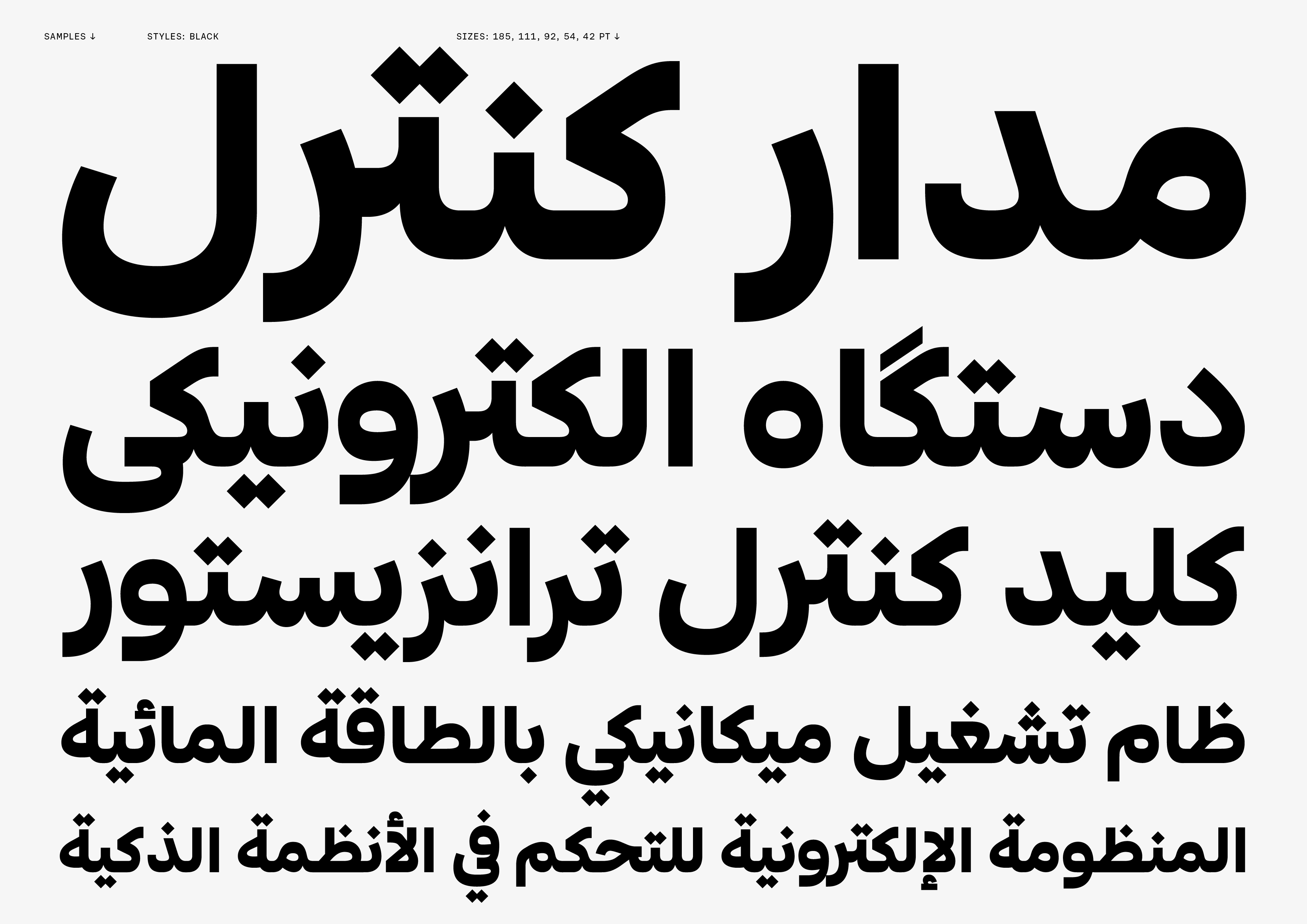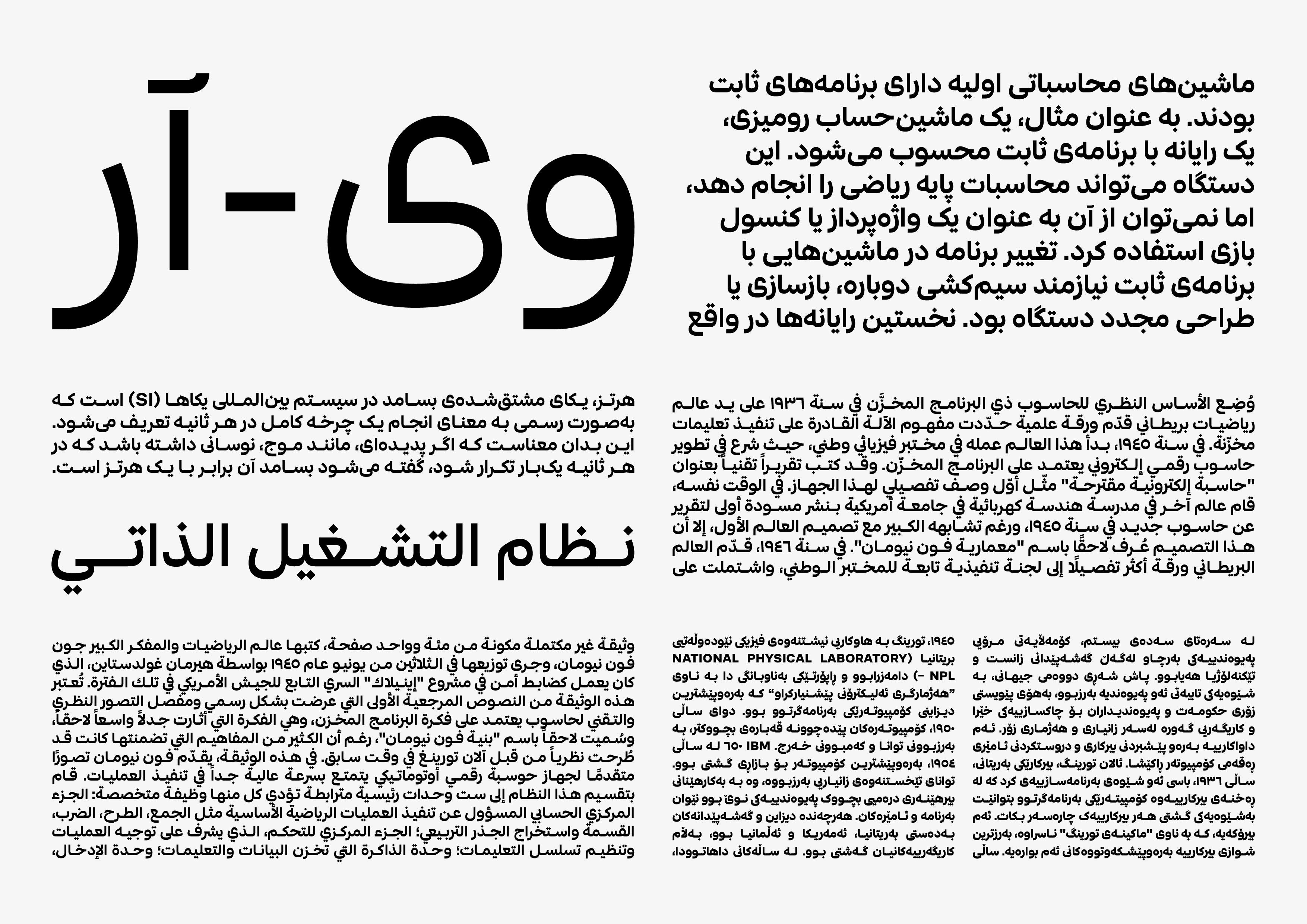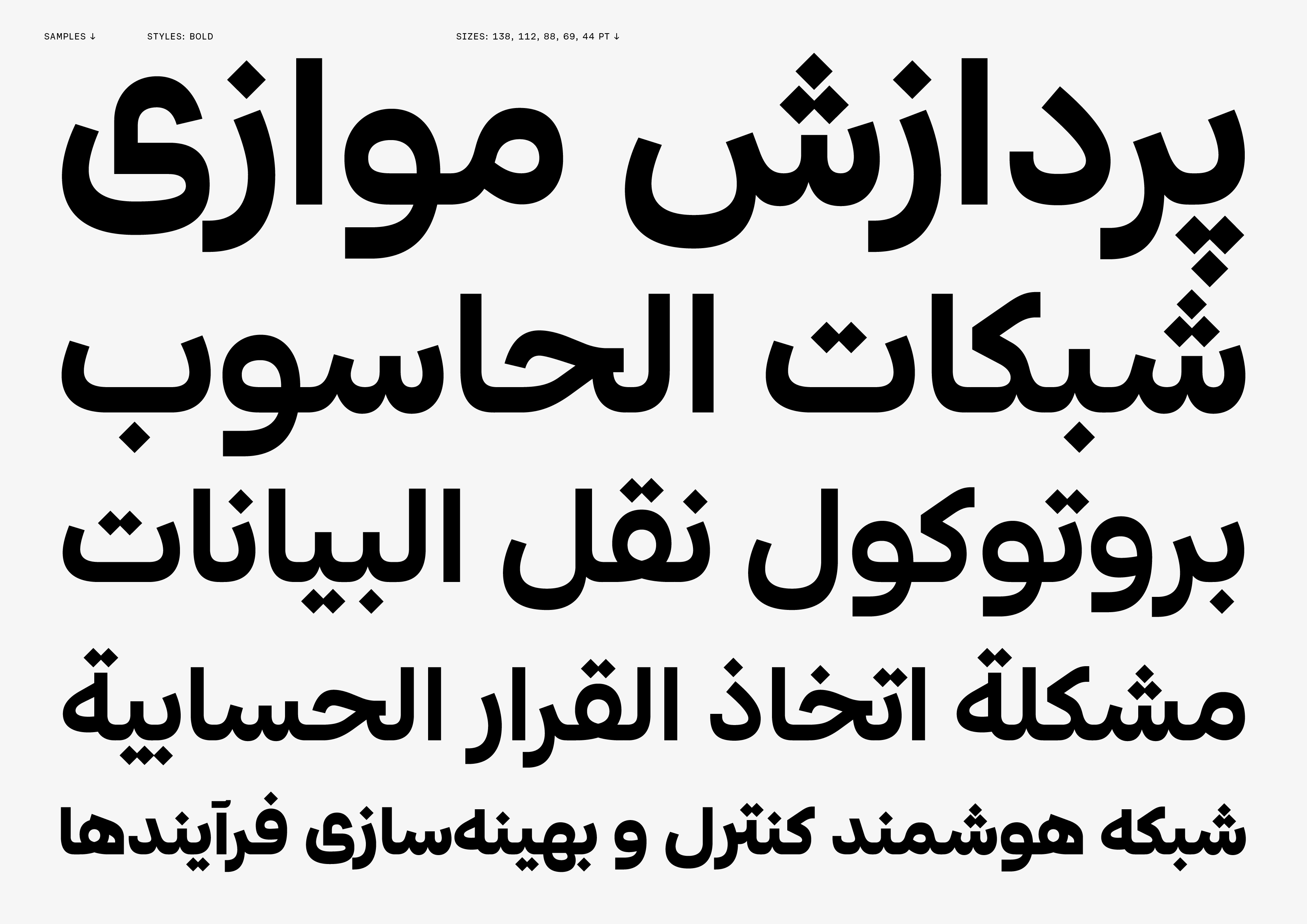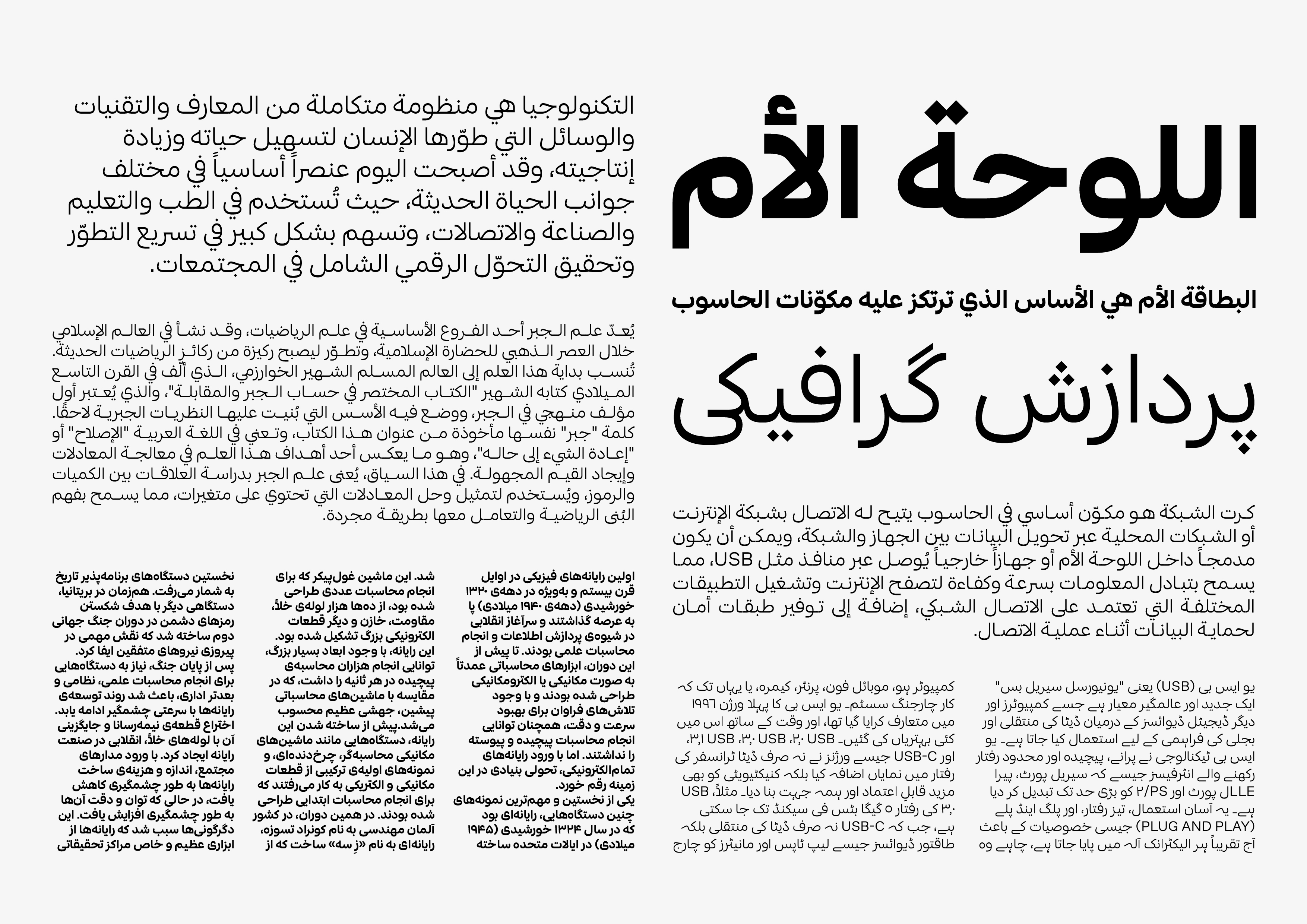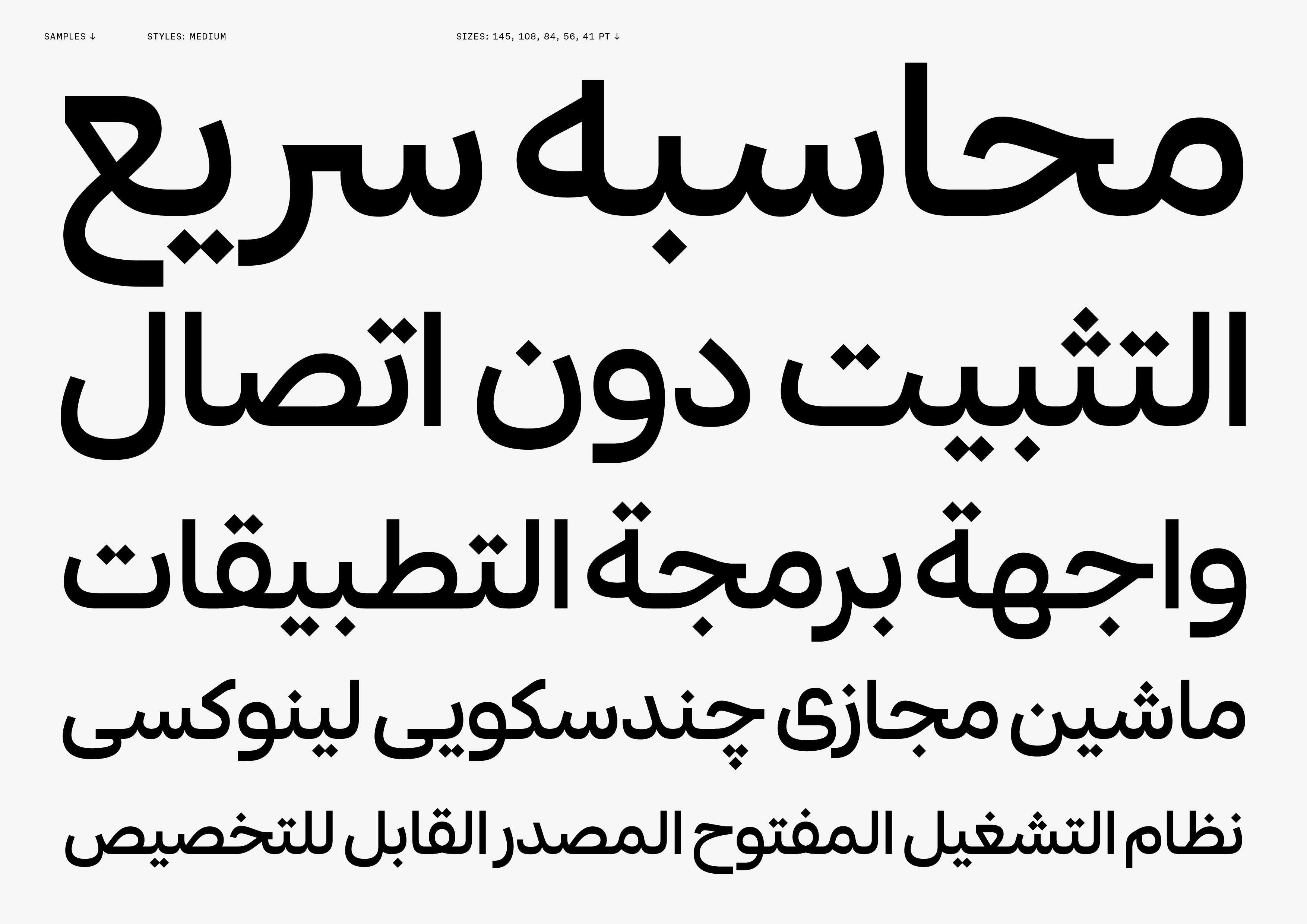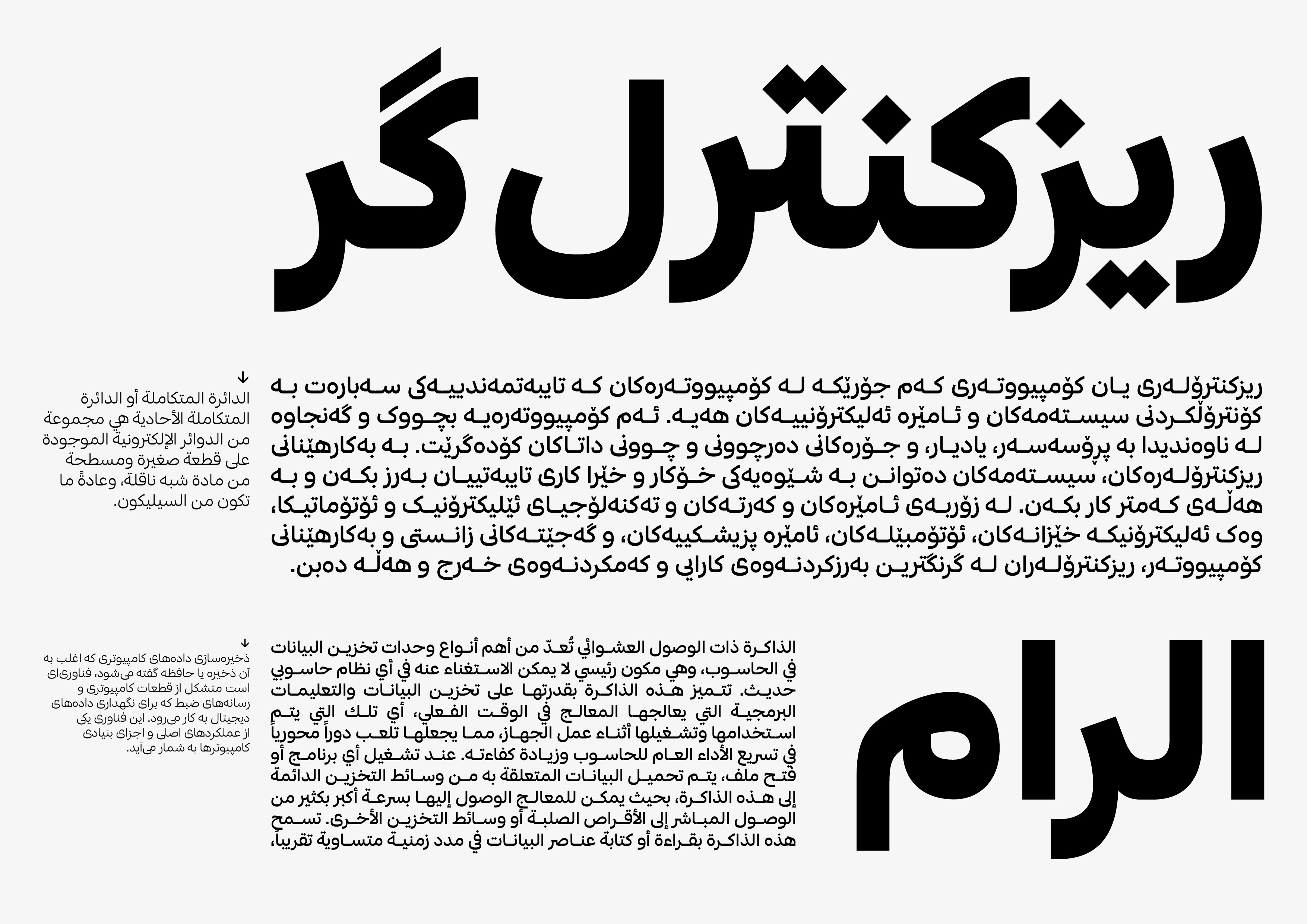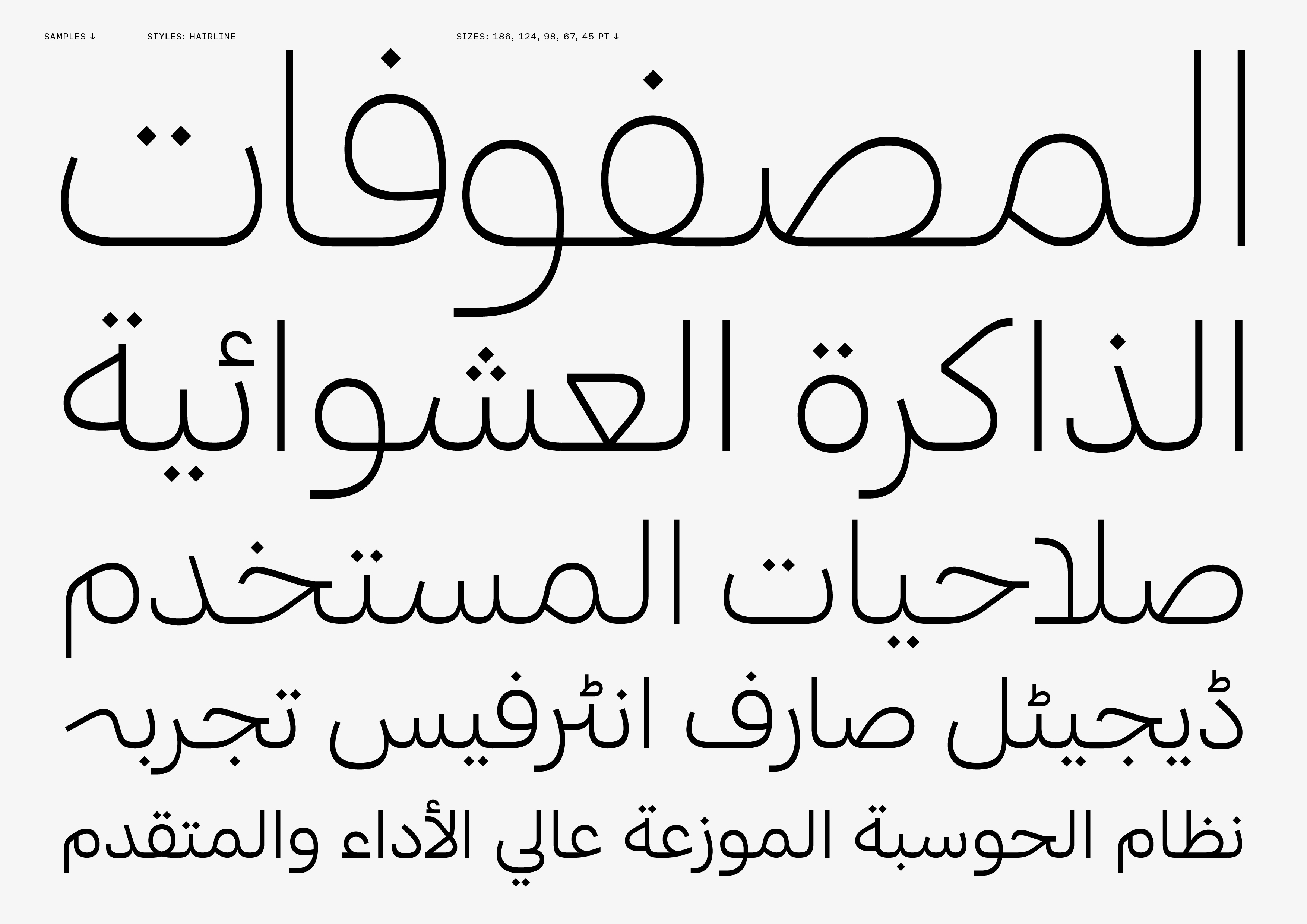
CoFo Sans Arabic
It is a clean sans serif built on the idea of harmony between rationality and emotion, with a slightly squared, industrial undertone.
The Arabic script was drawn, respecting the logic and traditions of Arabic writing while maintaining a consistent tone and rhythm across scripts. Rather than an adaptation, it is a companion that integrates naturally within the larger system.
The family includes eight carefully crafted weights, supporting Extended Latin, Cyrillic, Vietnamese, and Arabic. Designed with digital use in mind, it performs reliably across interfaces, applications, and extended reading environments.
Conceived as an expandable system, the project is intended to grow across scripts. The Arabic component contributes as a confident, contemporary interpretation—functional, considered, and quietly expressive within a global typographic framework.